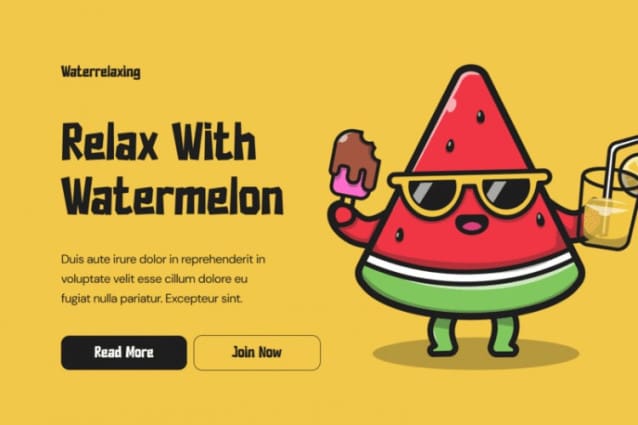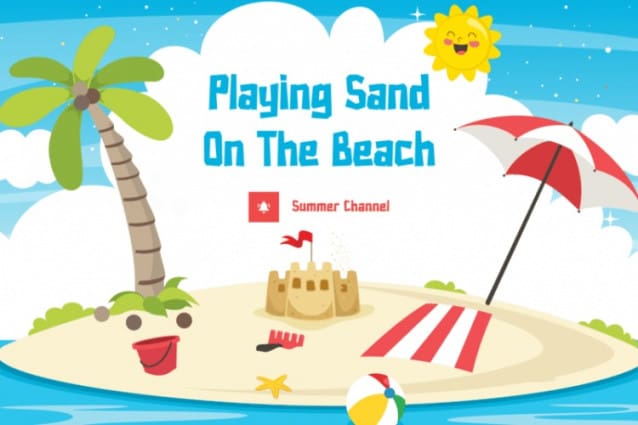
Quick Dog Font
Quick Dog Font – the ultimate font choice for young gamers, social media enthusiasts, and creatives looking to add a touch of whimsy to their designs. This Cartoon Font is perfect for creating playful and fun designs, from YouTube videos to movie posters.
Designed with kids in mind, this Comic Font features a sans serif style that is both easy to read and aesthetically pleasing. Whether you’re designing a cute logo or creating Instagram graphics, Quick Dog is the perfect choice. And with its Funny Font style, you can add a touch of humor to any design.
But that’s not all – Quick Dog is also a Display Font that commands attention. It is bold, attention-grabbing and will help your designs stand out from the crowd. Its Gaming Font style makes it the perfect choice for game designers looking for a font that is both bold and playful.
What’s more, Quick Dog comes with plenty of nature foliage and floral elements, giving it an organic and natural style that will elevate any design. It’s a Kids Font that will be loved by children and adults alike, making it the perfect choice for any design project.
So if you’re looking for a versatile and engaging font that will help your designs pop, look no further than Quick Dog. Whether you’re designing for social media, creating content for YouTube, or designing movie posters, this font will bring your designs to life.